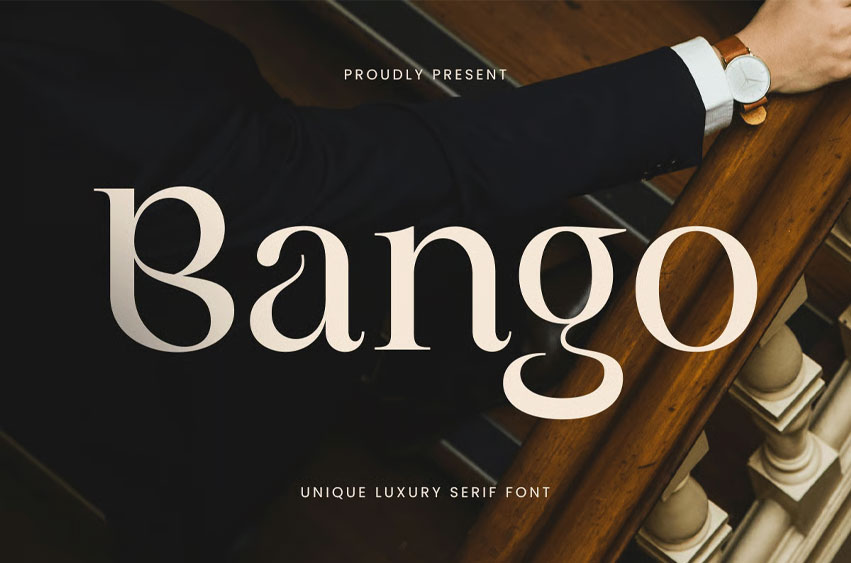
Bango Font
Bango Font is a unique luxury serif font crafted for high-end branding, logos, and elegant creative projects. Its refined letterforms and sophisticated design provide a polished, professional, and luxurious look for premium designs.
Ideal for editorial projects, fashion branding, packaging, and digital applications, Bango combines readability with elegance, making it perfect for designers seeking a standout serif typeface with a luxurious touch.
Bango – Unique Luxury Serif Font Features
• Elegant and unique serif character set
• Perfect for luxury branding, logos, and premium designs
• OpenType features for extra versatility
Elevate your premium projects with Bango – the ultimate unique luxury serif font for sophisticated branding.